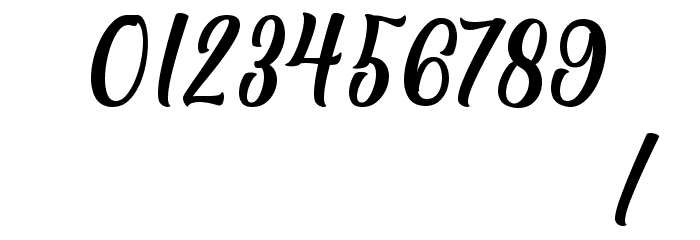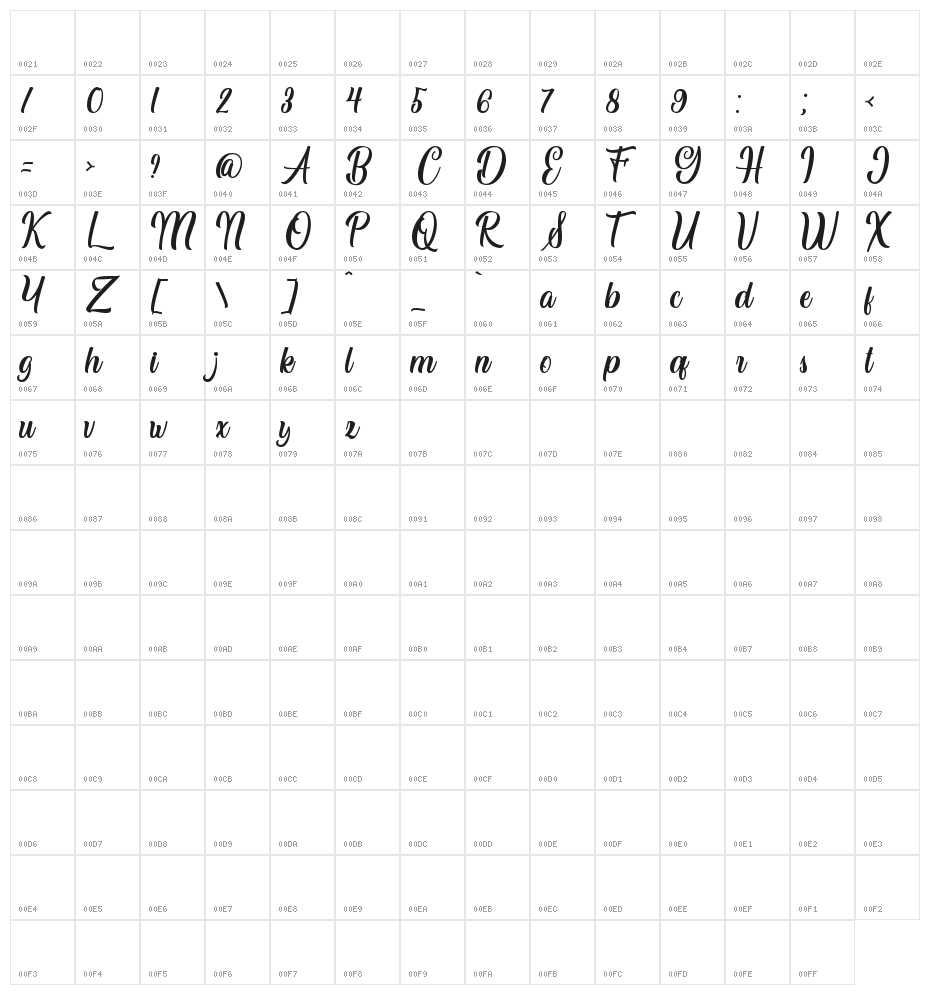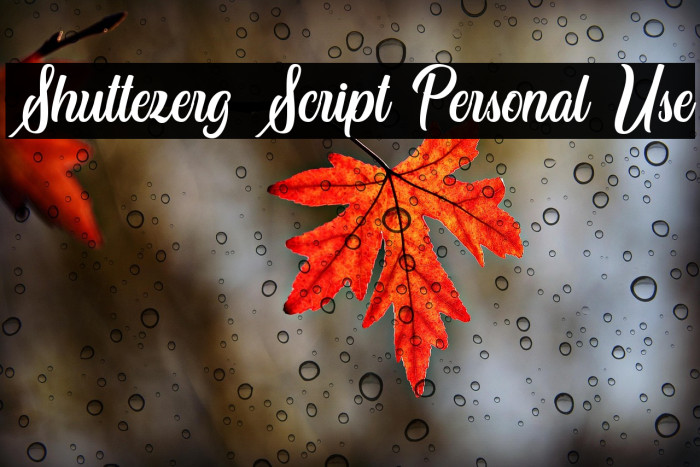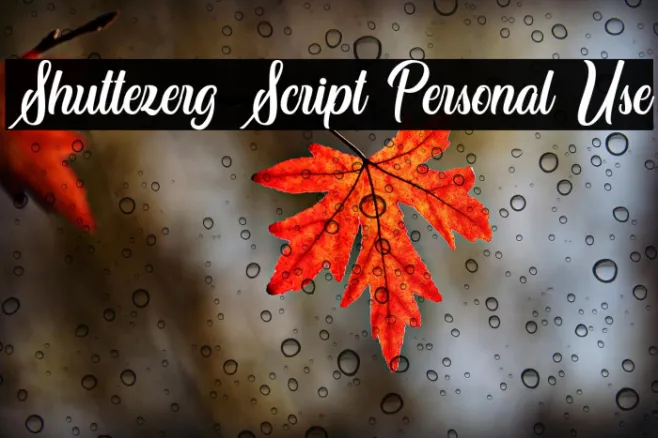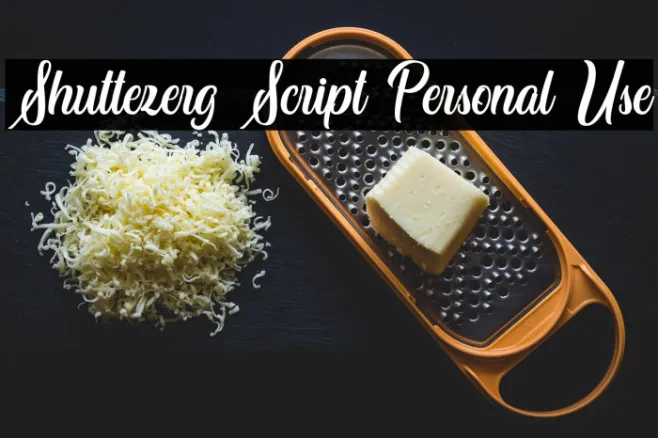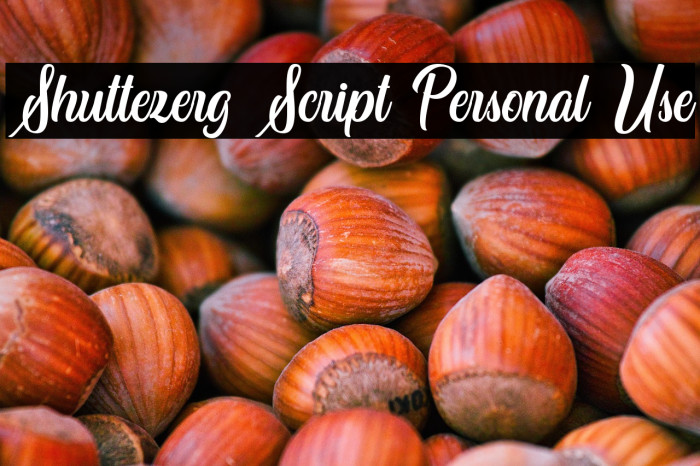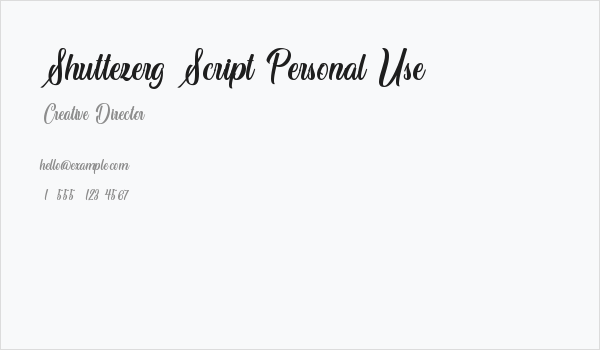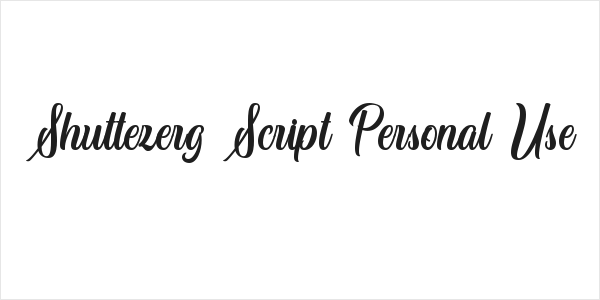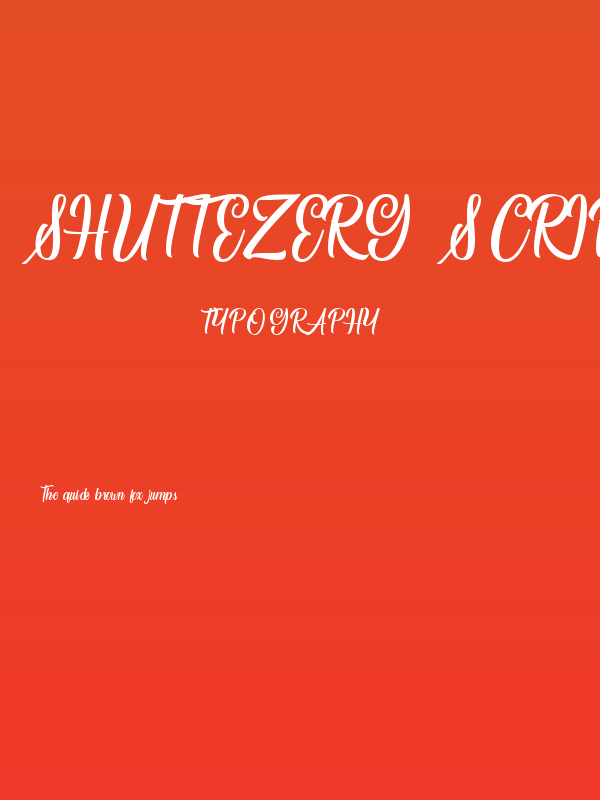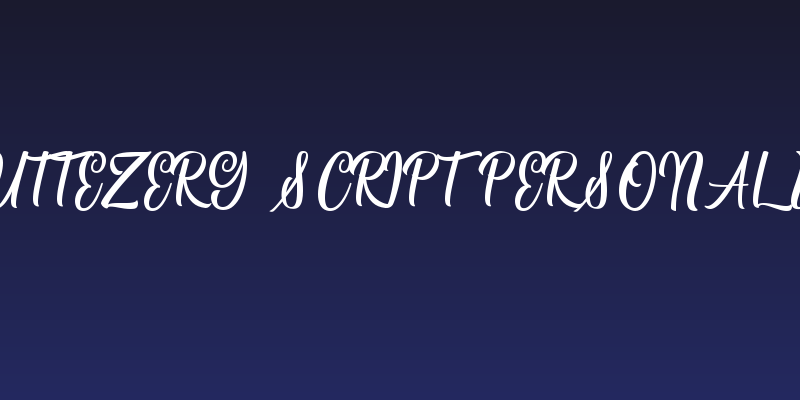
Shuttezerg Script Personal Use Font
Shuttezerg Script Personal Use Description
This script font exudes elegance and fluidity, characterized by its smooth, flowing strokes and cursive style. The uppercase letters are bold and prominent, with graceful curves that give a sense of movement. The lowercase letters maintain a consistent style, with some featuring unique loops and swashes that add a decorative touch. The numerals are clear and legible, matching the overall script style. Special characters are included, maintaining the same elegant flair. This font is perfect for adding a personal, handwritten feel to any project.